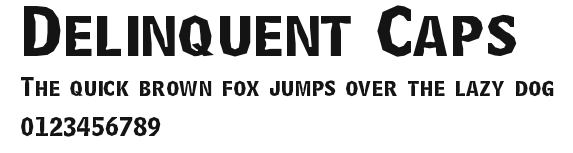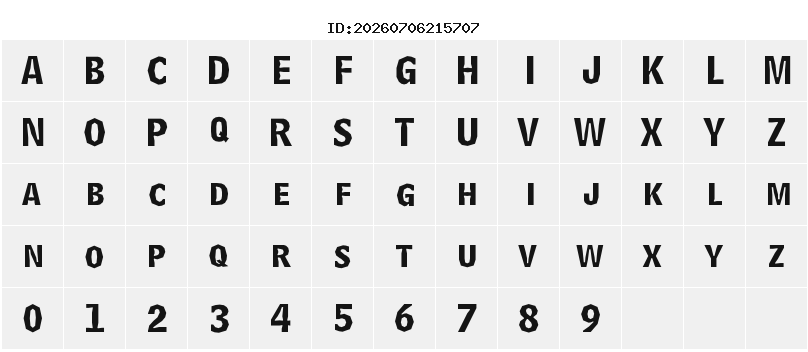
Delinquent Caps Preview
About Delinquent Caps.ttf
Delinquent Caps.ttf is a modern, elegant sans-serif font designed for ultimate readability and visual harmony. Perfect for branding, headlines, web design, and print materials.